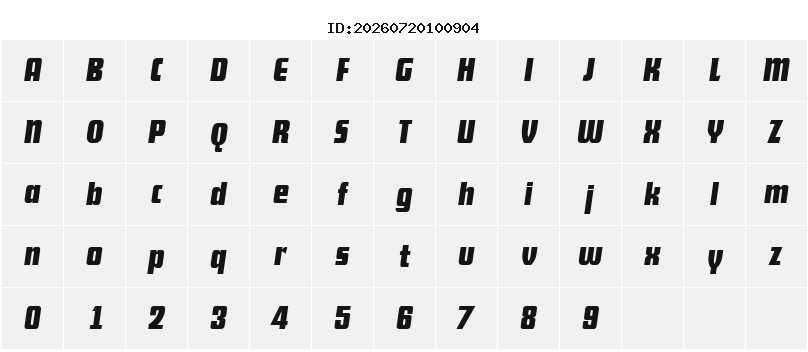
• Font Name: FutanaItal
About FutanaItal.ttf
FutanaItal.ttf is a modern, elegant sans-serif font designed for ultimate readability and visual harmony. Perfect for branding, headlines, web design, and print materials.